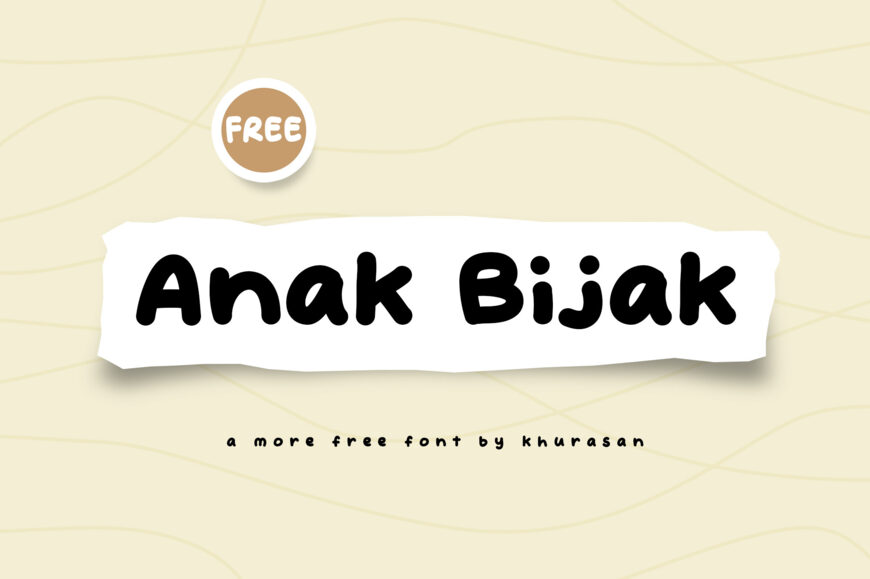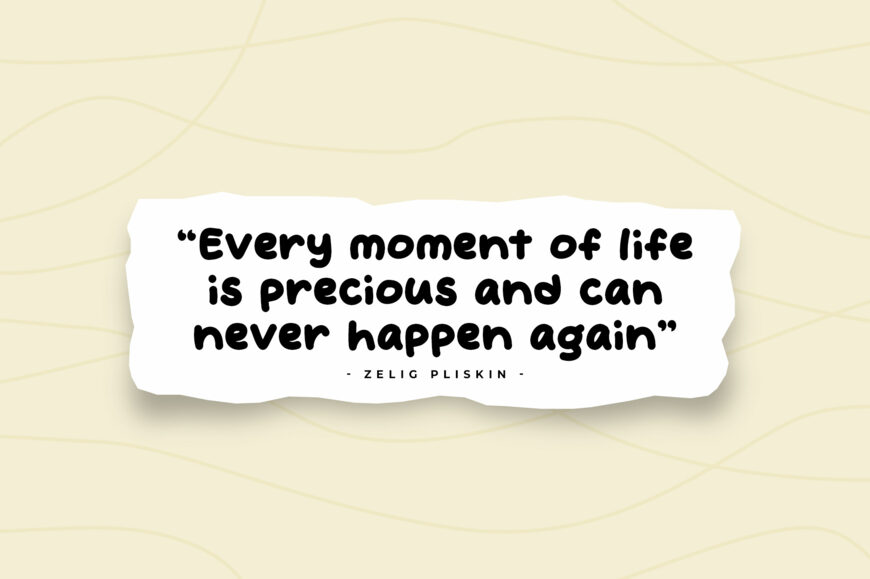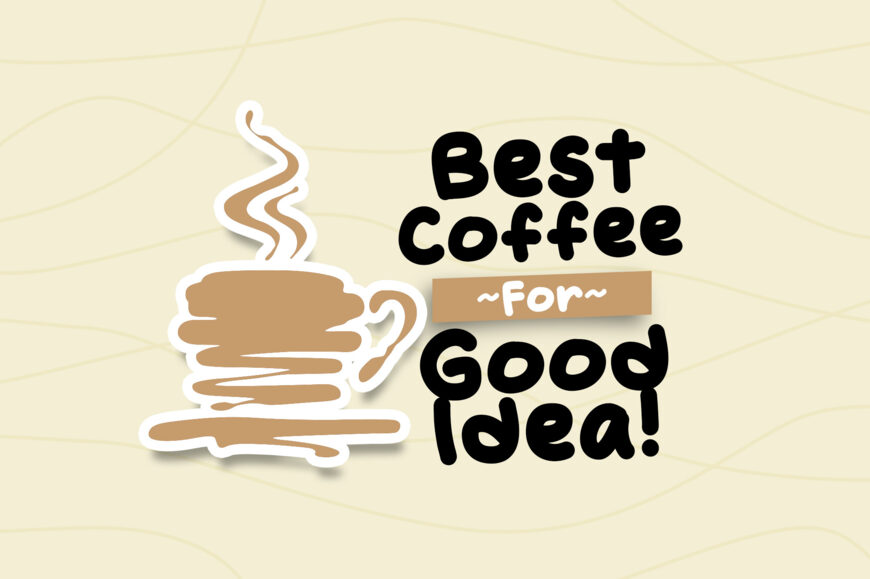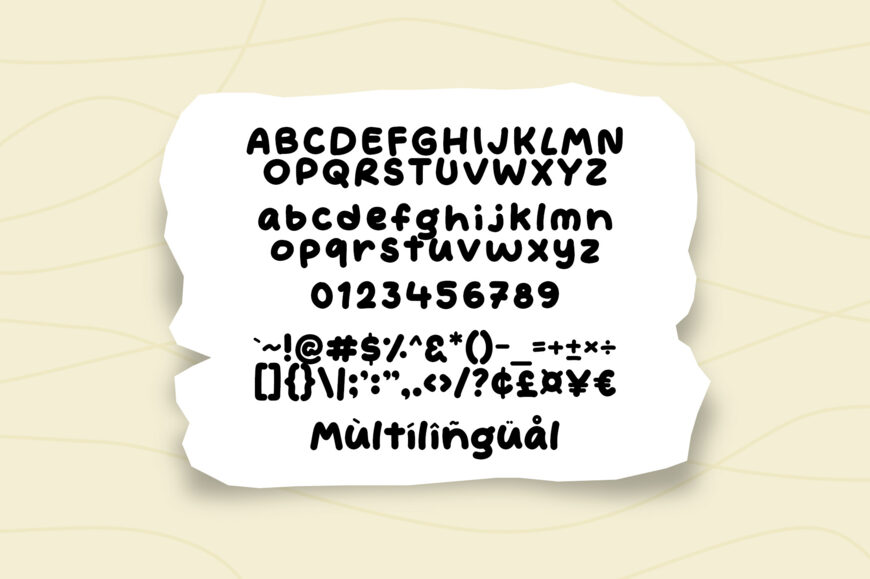
Breathe an air of relaxed, casual energy into your layouts with Anak Bijak, a wonderfully expressive display typeface. This modern handwritten font balances smooth, medium-weight marker strokes with playful, organic curves and mismatched mixed-case baseline heights that mimic natural handwriting on the fly.
With its approachable visual posture and effortless legibility, Anak Bijak is the premier choice for indie lifestyle branding, boutique artisanal product packaging, casual book title headers, custom greeting cards, and high-impact social media quotes.